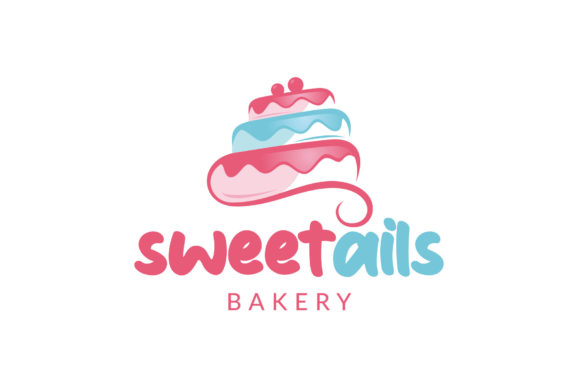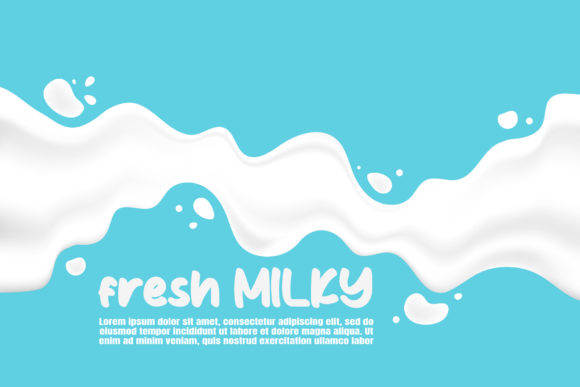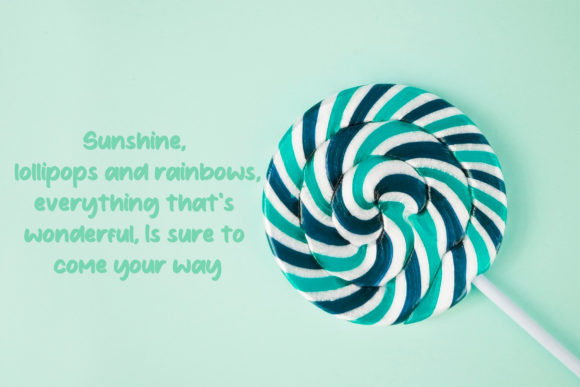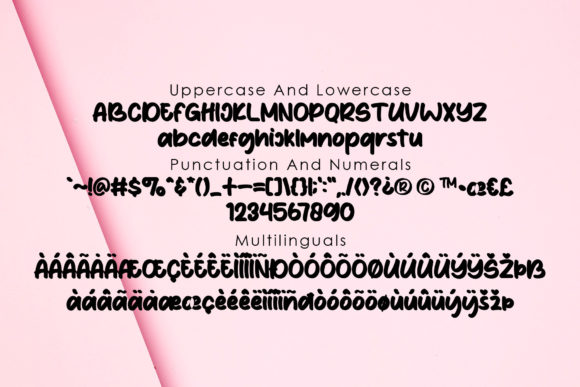
Introduction to Money Honey Font
Money Honey is a casual, easy-to-read display font that conveys impeccable friendliness.
Money Honey Font offers exceptional quality and versatility, making it a valuable addition to your design toolkit. Whether you’re creating for personal projects or commercial use, Money Honey Font delivers professional results.